Big Fog
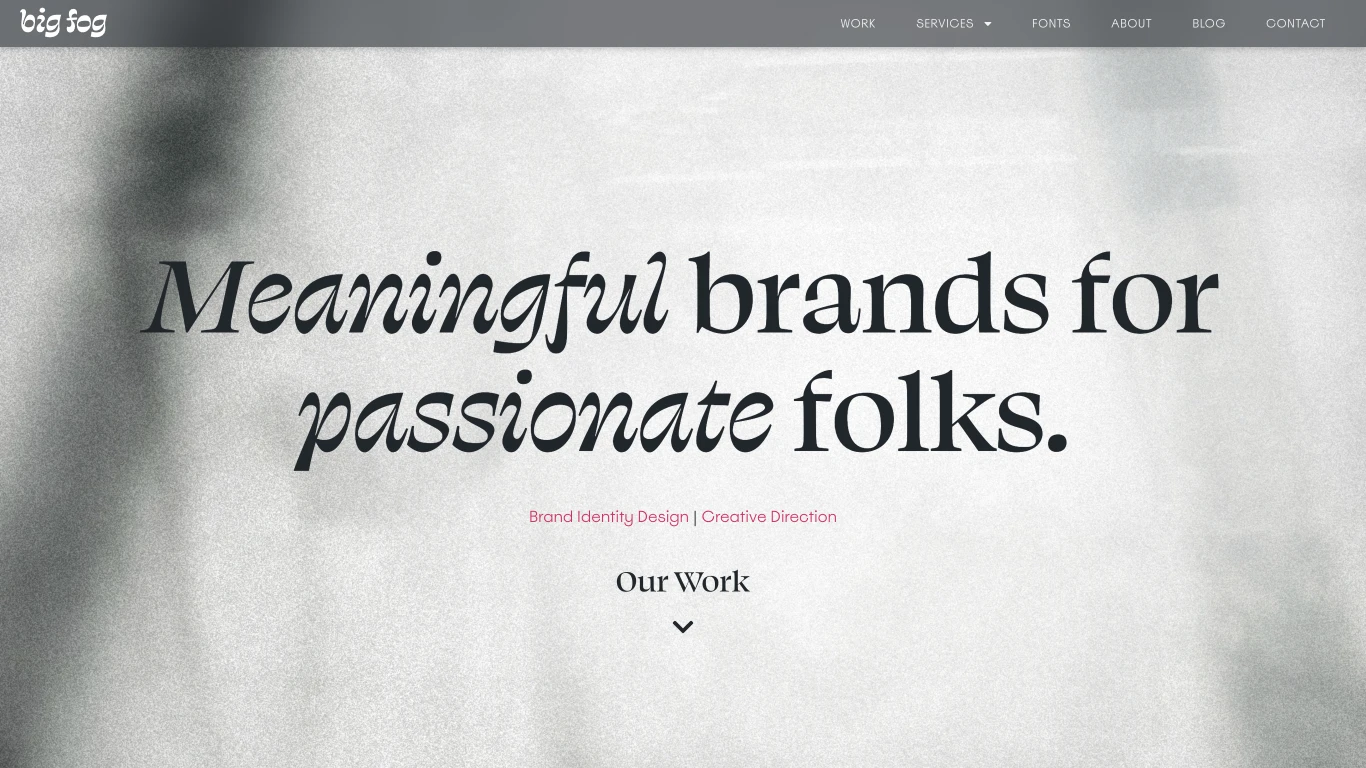
Big Fog is a multidisciplinary design studio based in the foggy mountains of West Virginia, specializing in branding, website development, type design, illustration, and printed media. Founded by co-founders and designers Valerie Burgess and Brian Dove, the studio is recognized for creating thoughtful logos, illustrations, brand identities, and websites. Big Fog has developed unique typefaces, such as the funky Display Bold Cilati face of OHno's Swear for headlines, paired with Polytype's "slightly irreverent" geometric sans, Spoof, for body copy.